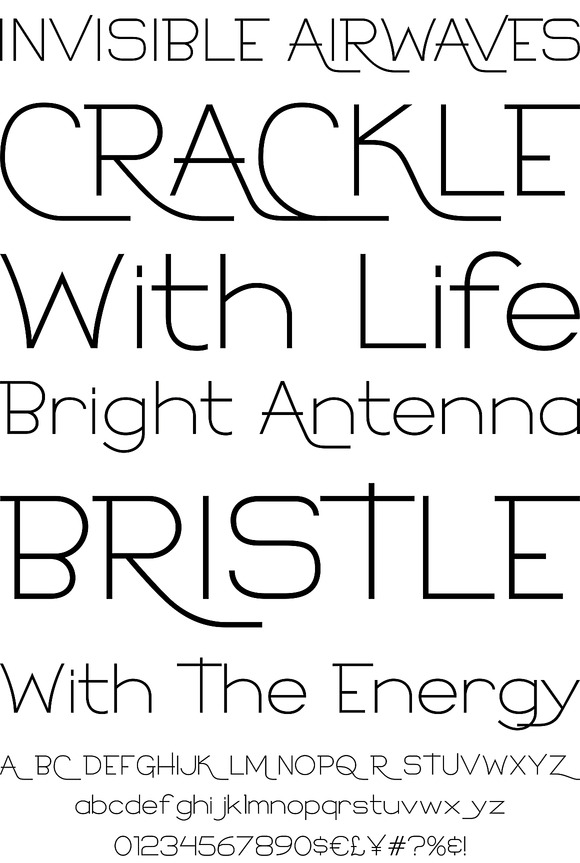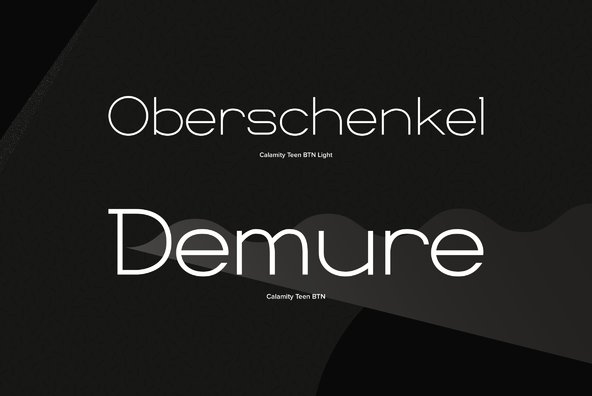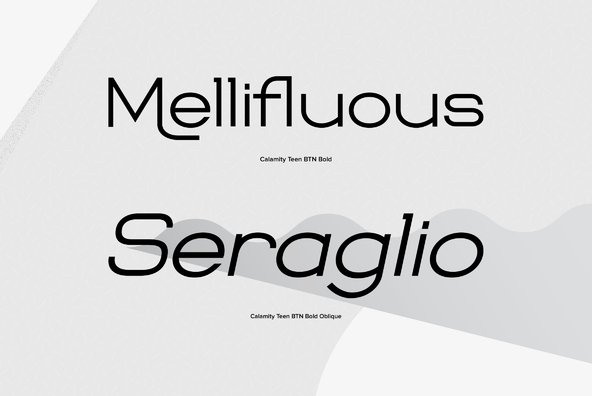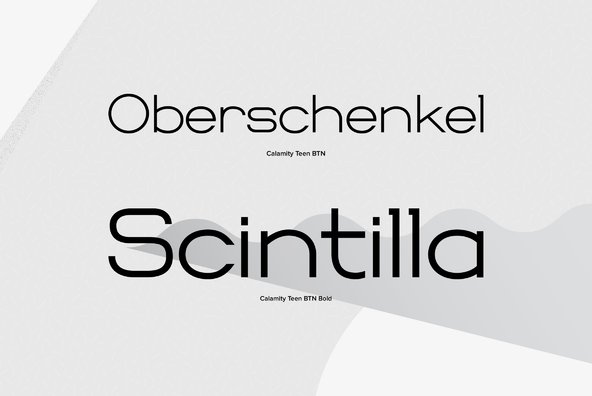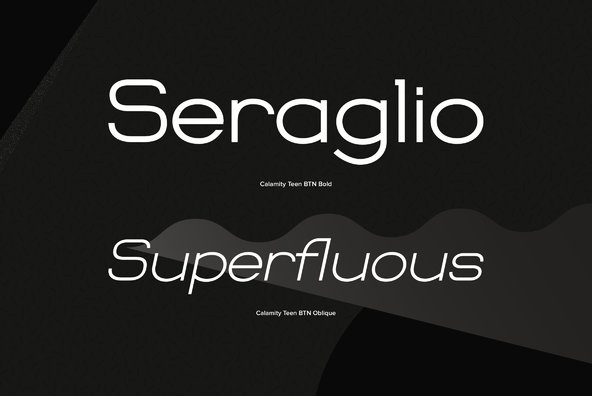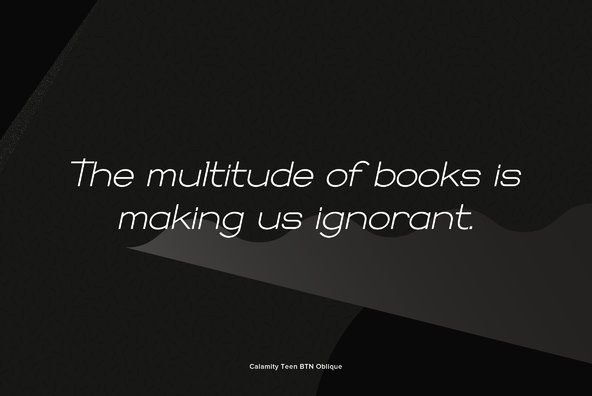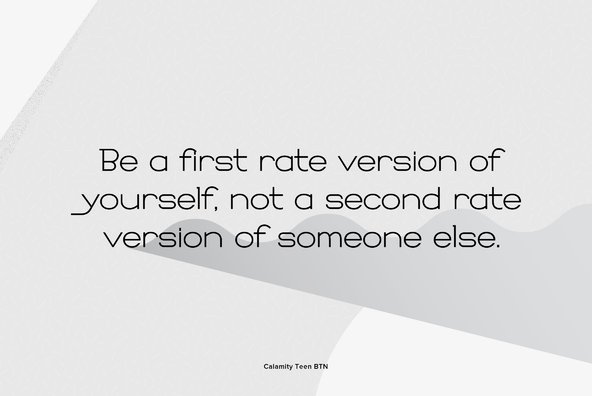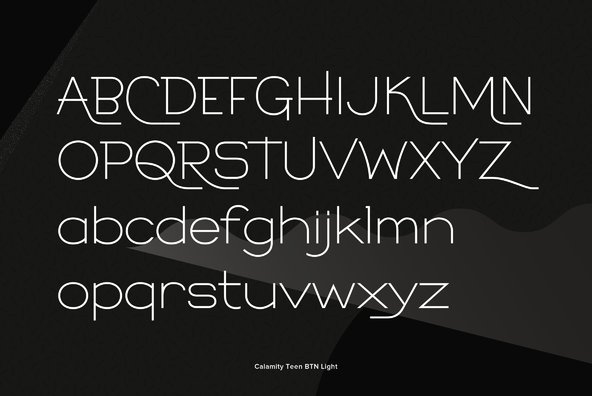
CalamityTeen
Foundry: Breaking The Norm
Calamity Teen is an oddity of a typeface with a seemingly basic lowercase, but Capitals that have flowing decenders all over to create a dated retro feel to it. A display typeface that moonlights in text settings of the playful type.